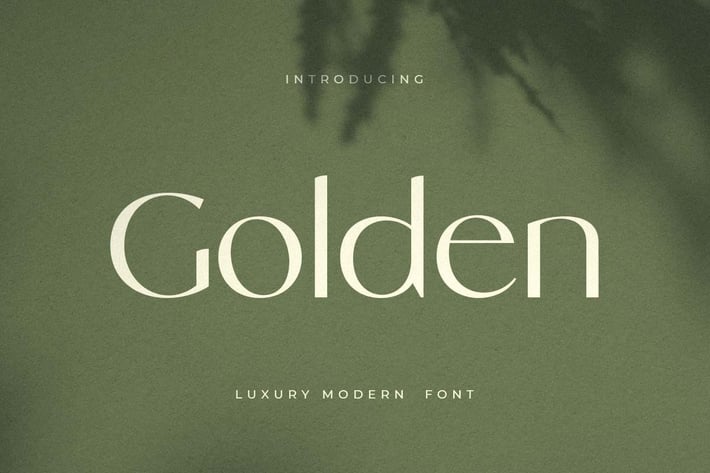
Golden - Luxury Modern Font
Golden is a Modern Luxury Elegant Sans Serif Font with Sharp shape make your design look classy and elegant
A new San Serif Font that we created special for Headline, Title and more stand out typography needs, with extra ligature that will add your variations. It's so perfect to add your style and headline overview. And specially for Golden font, we crafted for unique style and modern feels so enjoy to create any project that will show your main idea out.
+ Any options to get creative variations (combination of Ligature Characters)